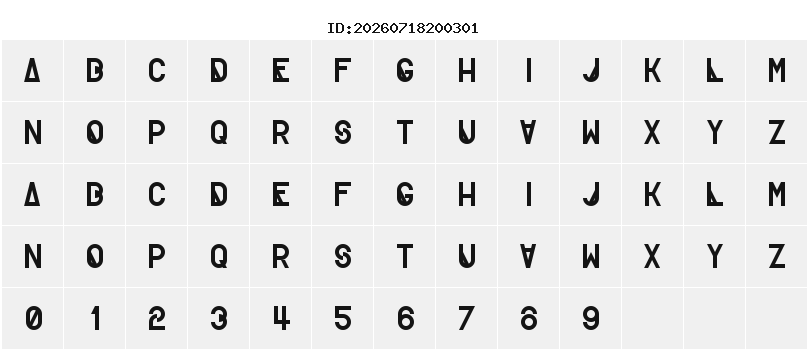
Creatif Preview
• Font Name: Creatif
• Font ID: Creatif
• Full Font Name: Creatif Regular
• PostScript Name: Creatif
• Character Count: 119
• Designer: Out Of Step Font Company
About Creatif.ttf
Creatif.ttf is a modern, elegant sans-serif font designed for ultimate readability and visual harmony. Perfect for branding, headlines, web design, and print materials.